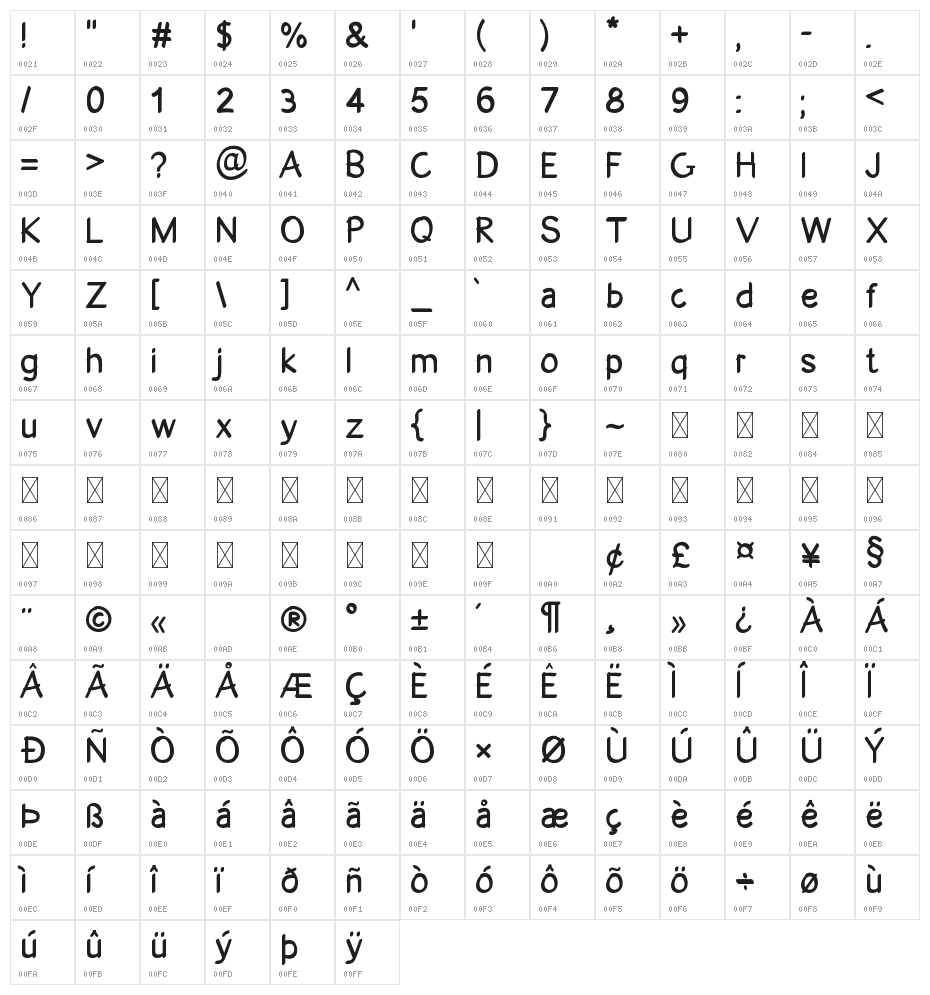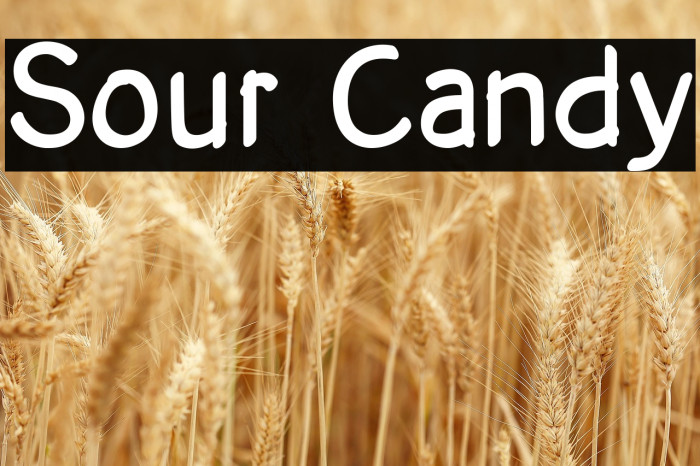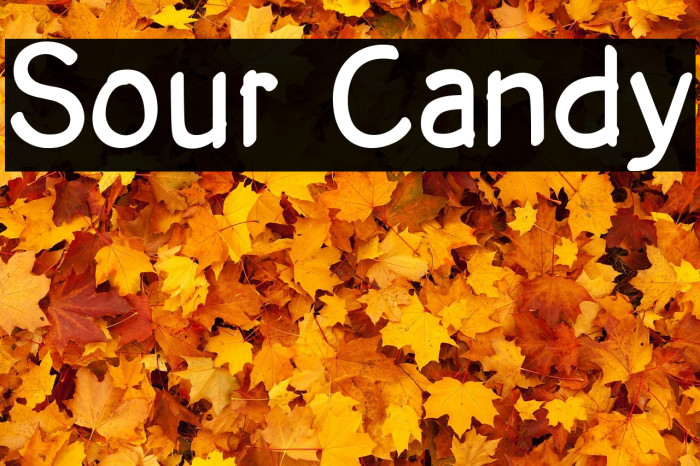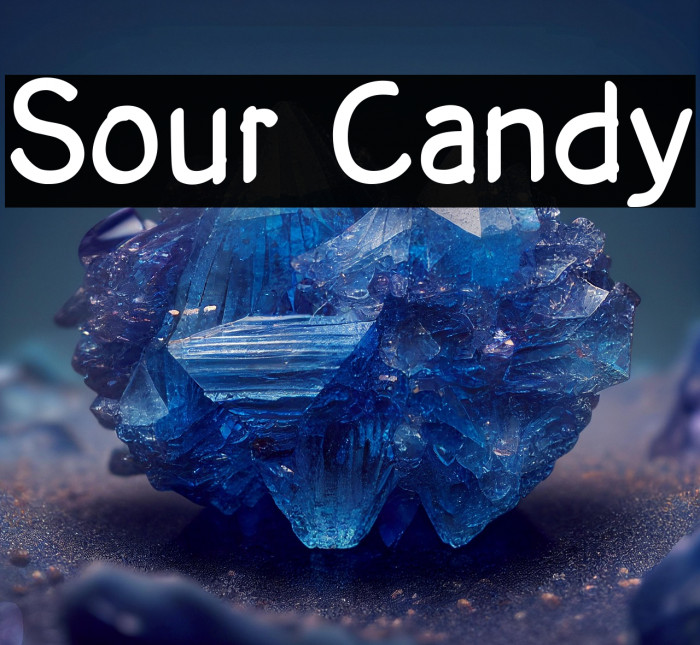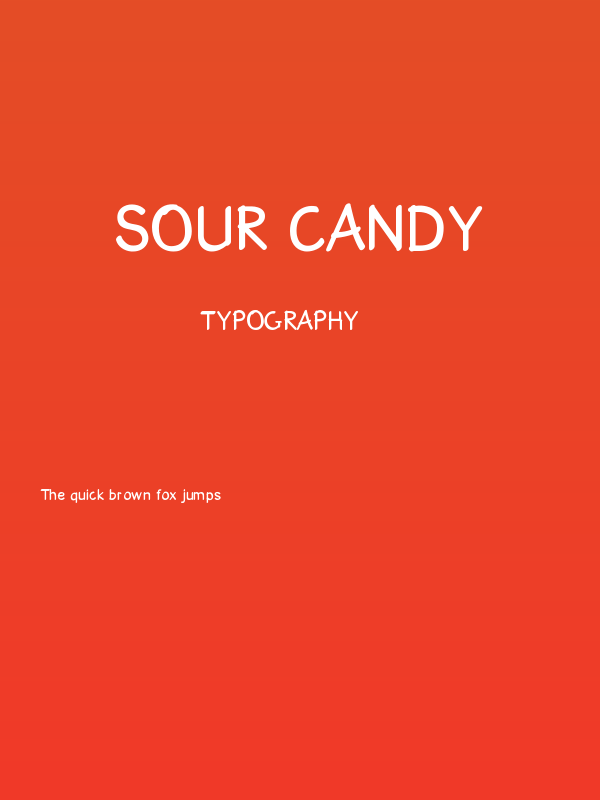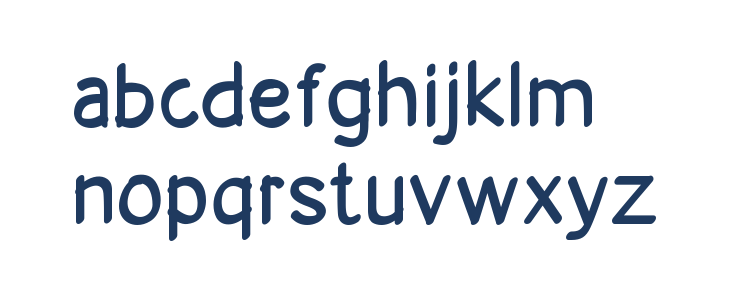
Sour Candy Font
Sour Candy Description
This font features a playful and rounded style, characterized by its smooth curves and friendly appearance. The letters are evenly spaced with a consistent stroke width, giving it a clean and approachable look. The rounded edges and slightly informal design make it suitable for a variety of creative projects. The numerals and special characters maintain the same playful aesthetic, ensuring a cohesive look across all text elements.